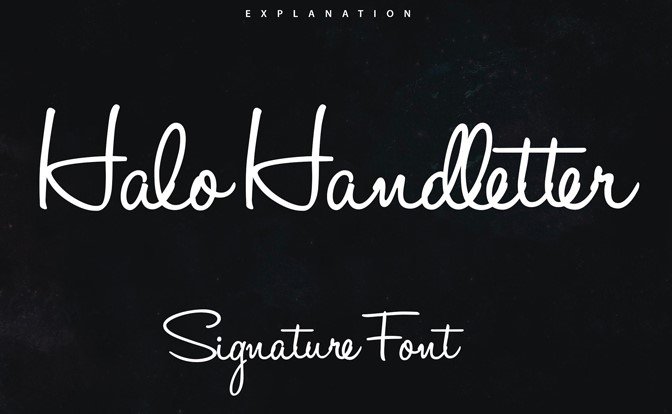
We are presenting some of the world’s top and most acclaimed designs, featuring striking and sharp aesthetics along with exquisite household textures. These designs support extensive multilingual capabilities, including the use of Tamil scripts. The Halo Handletter Font typeface offers two distinct variations: medium and bold.
This is of the great versatile and creative font typeface that is perfect to work with geo sans light font has handsome and readable letterforms. It is great to clean and simple typeface that is perfect for book writing and content writing.
To make your websites more beautiful, use this font for your headings, paragraphs text because it will add great letterforms in your websites. Also, it is a screen-friendly typeface that’s why it can easily be adjusted in all viewports.
View Of Halo Handletter Font
Before scroll down, lets see the example of this typeface which we provided by showing all the characters and glyphs contains in this font.
One of the best way to work with this font is to use it as pairing purposes which you will be used by a combination of amsterdam signature font. You can design book covers, logos and also use in book writing as well.
The Sugar Candy Signature Font is very close to the Halo Handletter Font.